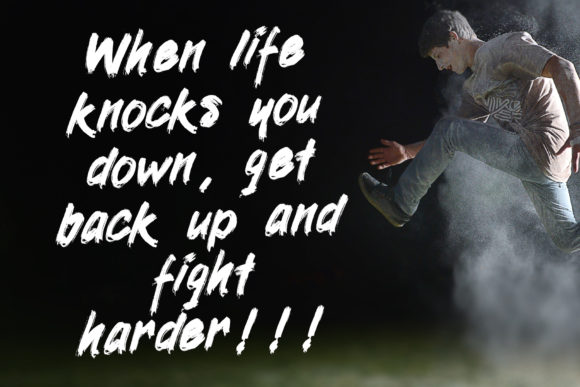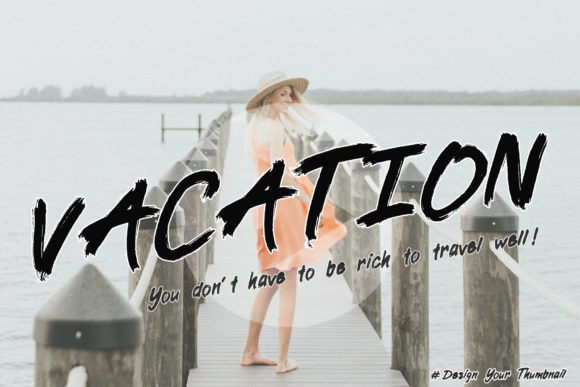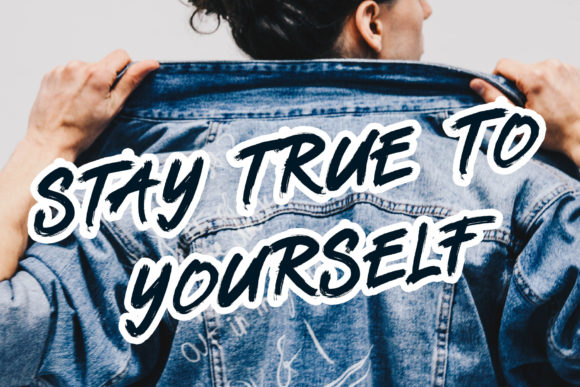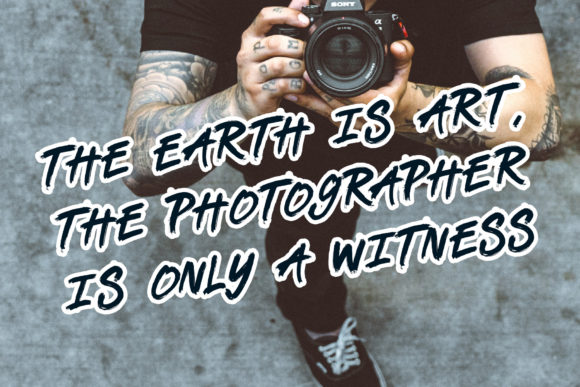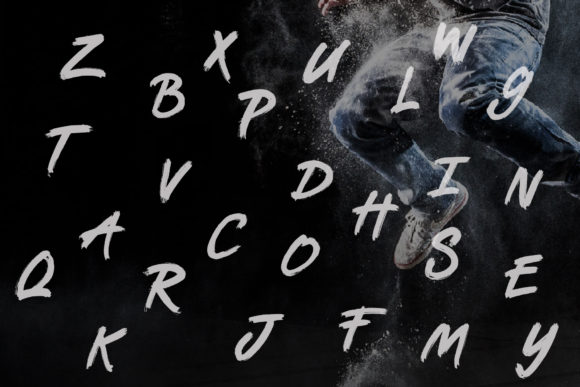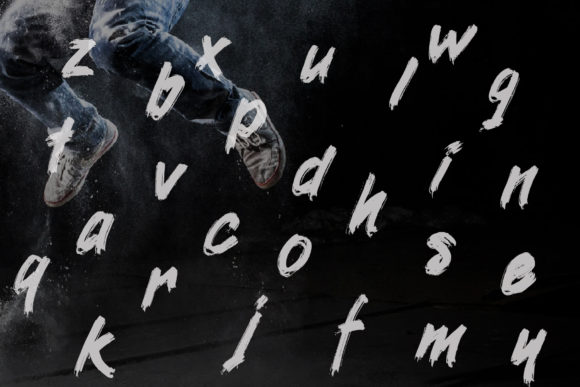
Introducing Boomboyah Font: The Bold and Cool Display Font with an Urban Edge
Are you tired of using the same old fonts in your designs? Do you want to add a touch of urban coolness to your projects? Look no further than Boomboyah Font, a bold and eye-catching display font that’s sure to inspire. In this article, we’ll take a closer look at Boomboyah Font, its unique style, and how you can use it to elevate your designs.
What is Boomboyah Font?
Boomboyah Font is a bold and cool display font designed with an urban edge. Its unique style is perfect for designers and crafters looking to add a touch of personality to their projects. Whether you’re working on a branding campaign, a website, or a craft project, Boomboyah Font is sure to make a statement.
Key Features of Boomboyah Font
- Bold and Eye-Catching: Boomboyah Font is a bold and attention-grabbing font that’s perfect for headlines, titles, and other display text.
- Urban Edge: With its unique style and edgy vibe, Boomboyah Font is perfect for designs that require an urban or streetwear aesthetic.
- Versatile: Boomboyah Font can be used for a wide range of projects, from branding and advertising to web design and crafting.
- Easy to Read: Despite its bold style, Boomboyah Font is easy to read, making it perfect for use in body text as well as display text.
How to Use Boomboyah Font
Boomboyah Font is perfect for a wide range of design projects, including:
- Branding and Advertising: Use Boomboyah Font to create bold and eye-catching logos, billboards, and ad campaigns.
- Web Design: Add a touch of urban coolness to your website with Boomboyah Font, perfect for headings, titles, and other display text.
- Crafting and DIY: Use Boomboyah Font to add a personal touch to your craft projects, such as signs, posters, and other paper crafts.
- Social Media: Make your social media posts stand out with Boomboyah Font, perfect for creating eye-catching graphics and memes.
Tips and Tricks for Using Boomboyah Font
Here are a few tips and tricks for getting the most out of Boomboyah Font:
- Use it Sparingly: Boomboyah Font is bold and attention-grabbing, so use it sparingly to avoid overwhelming your design.
- Pair it with Other Fonts: Experiment with pairing Boomboyah Font with other fonts to create a unique and interesting contrast.
- Experiment with Colors: Boomboyah Font looks great in a wide range of colors, so don’t be afraid to experiment and find the perfect color scheme for your design.
Boomboyah Font is a bold and cool display font with an urban edge that’s perfect for designers and crafters looking to add a touch of personality to their projects. With its unique style, versatility, and ease of use, Boomboyah Font is sure to inspire and elevate your designs. So why wait? Download Boomboyah Font today and start creating bold and eye-catching designs that are sure to turn heads.